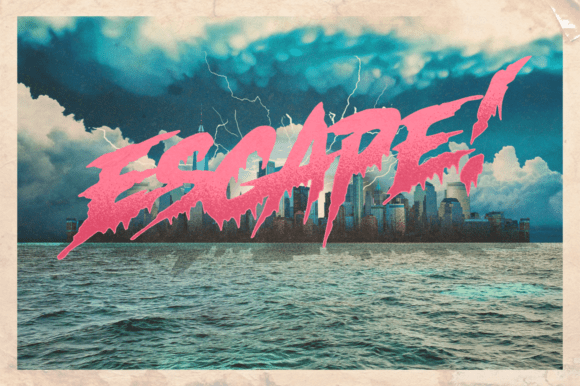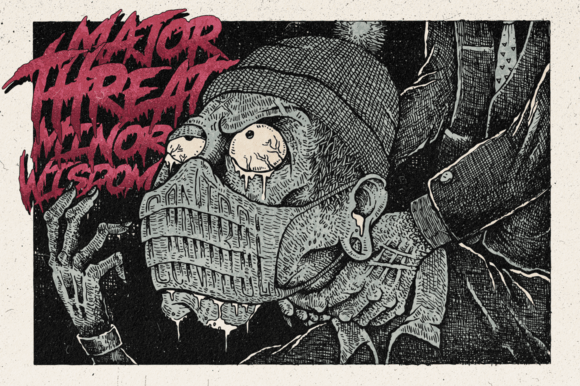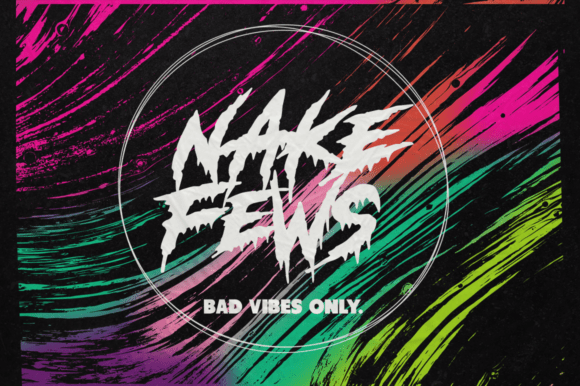
Introduction to Escape! Font
It is when you can’t get enough of horror types.
Escape Typeface is here to match those scary sketches on your mind.
Why Choose Escape! Font?
Escape! Font offers exceptional quality and versatility, making it a valuable addition to your design toolkit. Whether you’re creating for personal projects or commercial use, Escape! Font delivers professional results.